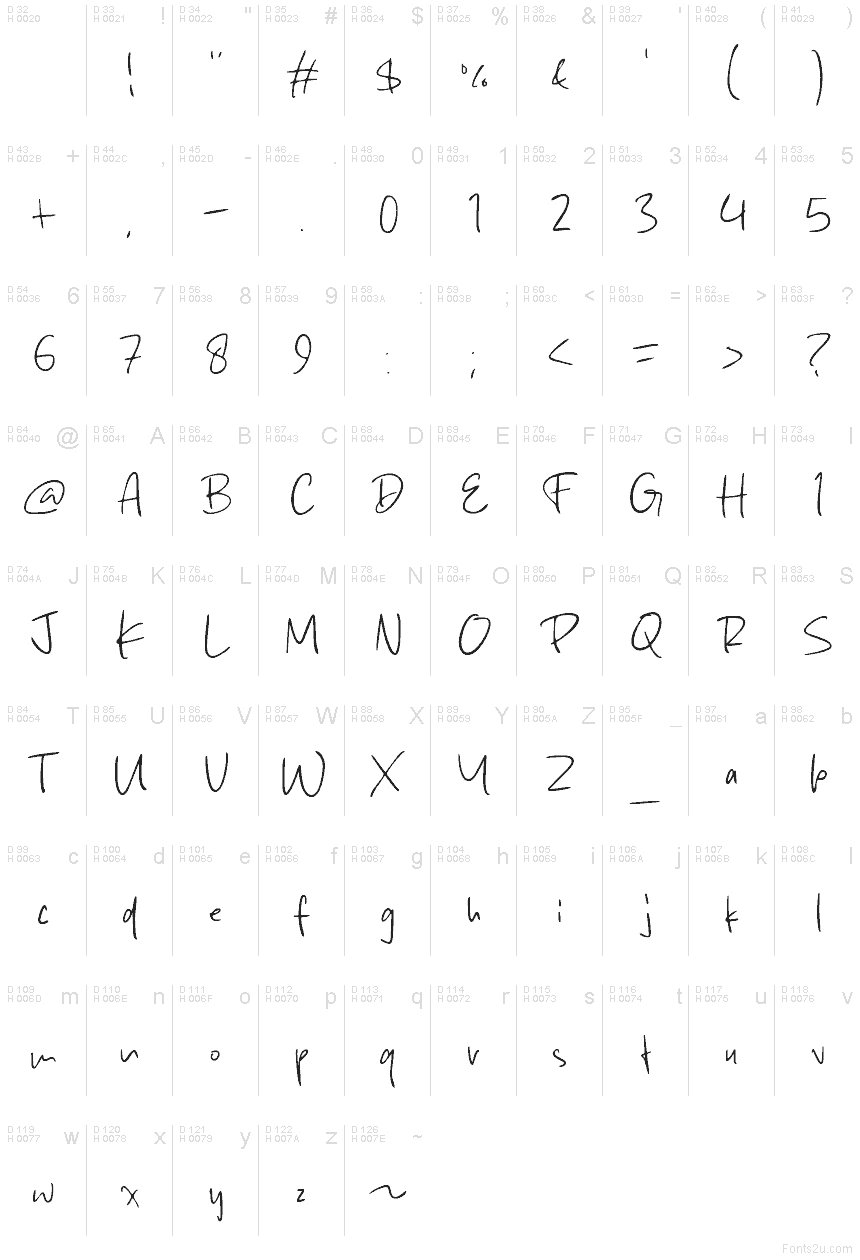
Dekopon Fruit
Dekopon Fruit font by MJType is a free handwritten typeface that bridges the gap between loose, inky spontaneity and real-world readability. Its tall, slightly irregular letters feel like they were scribbled with a fine brush pen—thin strokes, quick flicks, and just enough wobble to feel human without turning messy. The spacing breathes nicely, so even at smaller sizes you get that raw, handwritten energy without sacrificing clarity.
Using Dekopon Fruit, you can add personality to social media graphics, quote posters, handmade product labels, craft packaging, casual logos, and blog headers. This free font shines when you want your design to feel personal and unpolished in the best way. Try pairing Dekopon Fruit with a clean geometric sans in smaller text to ground its lively, scribbled character.